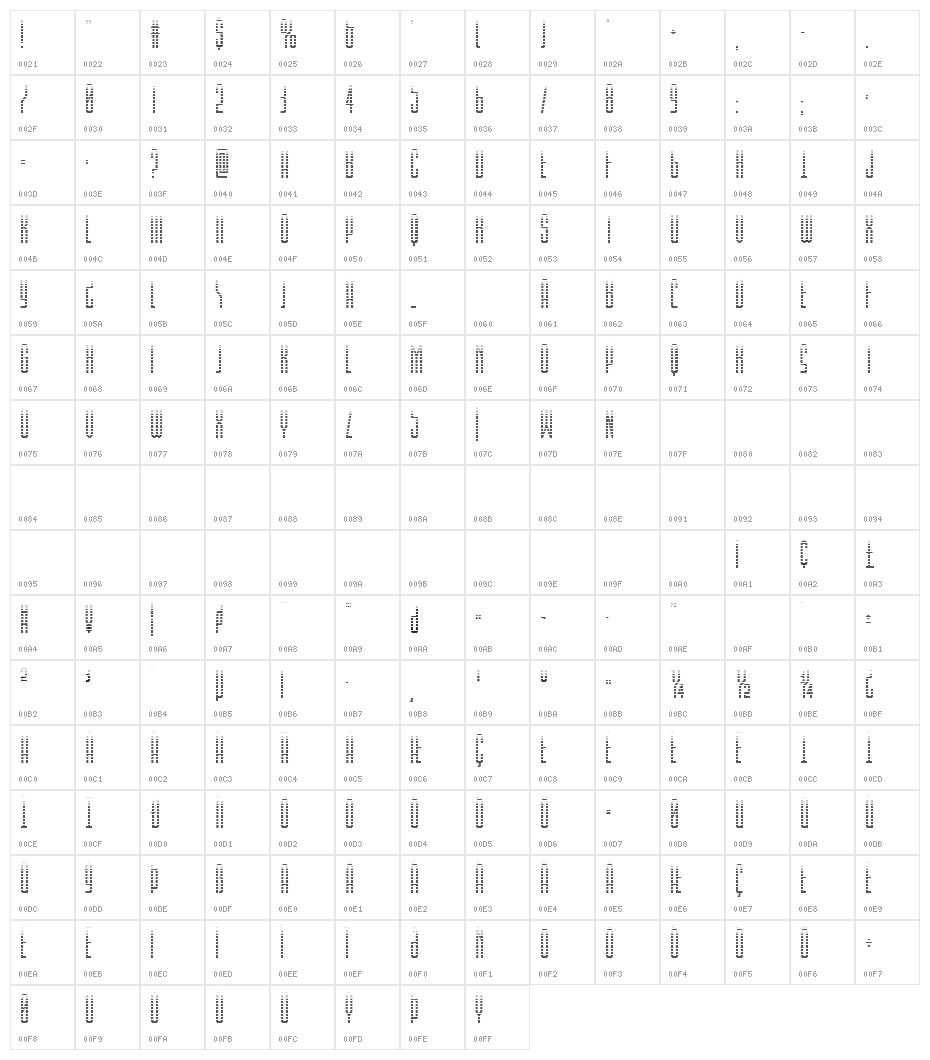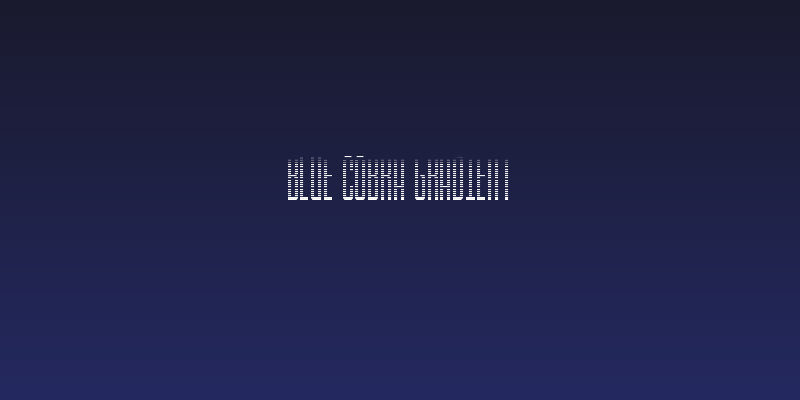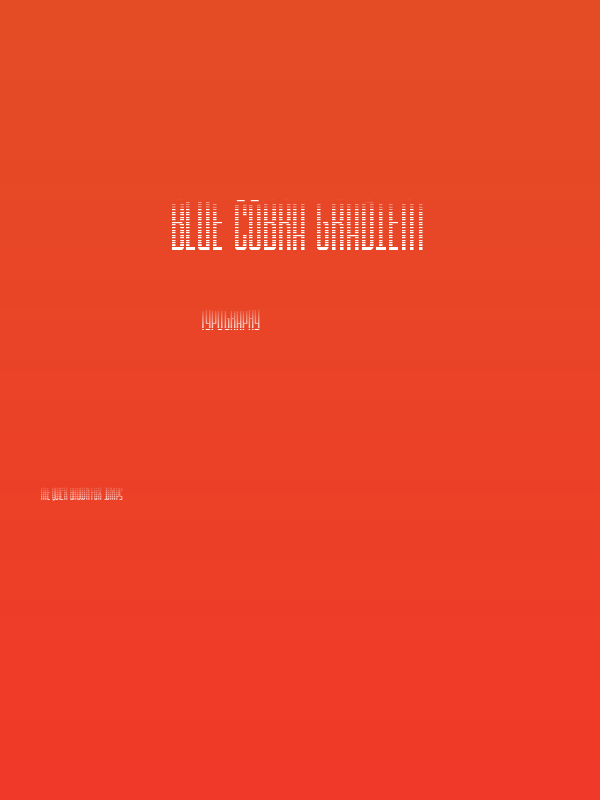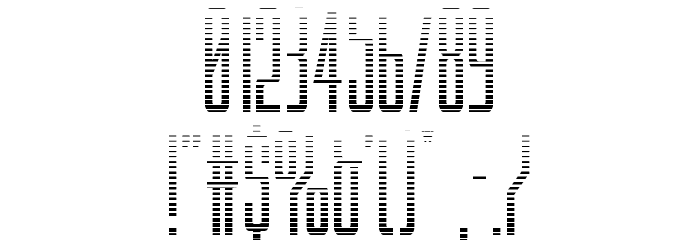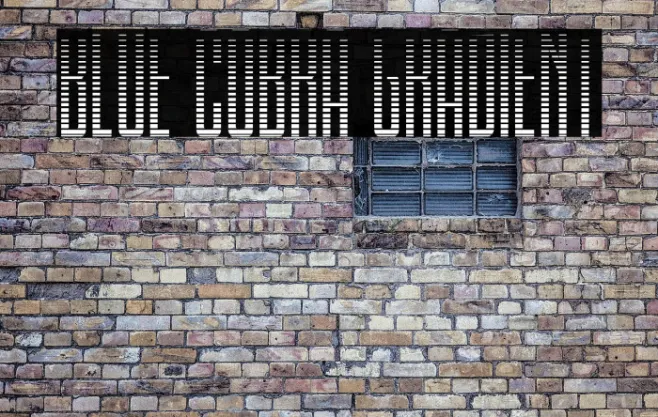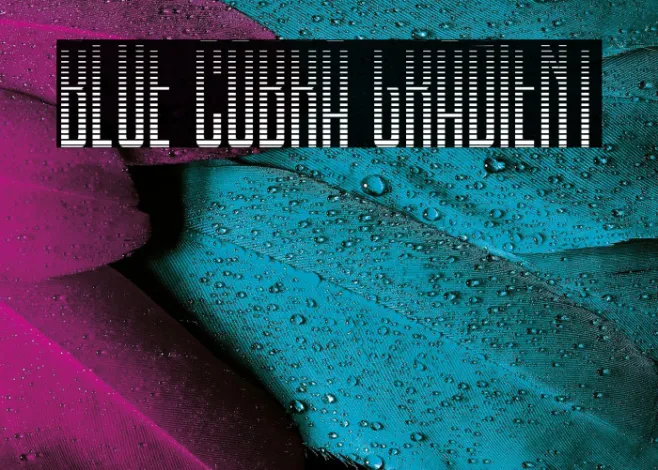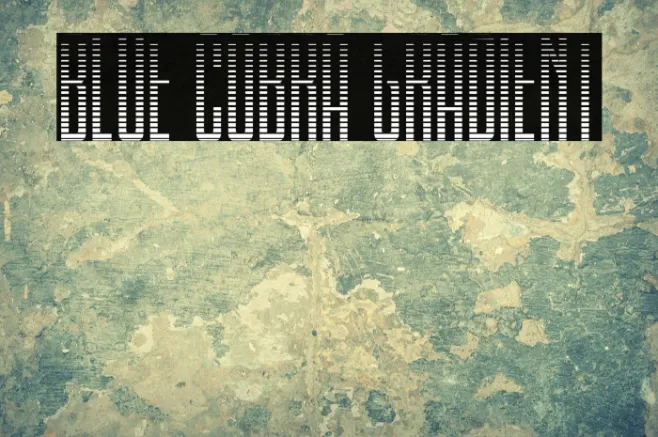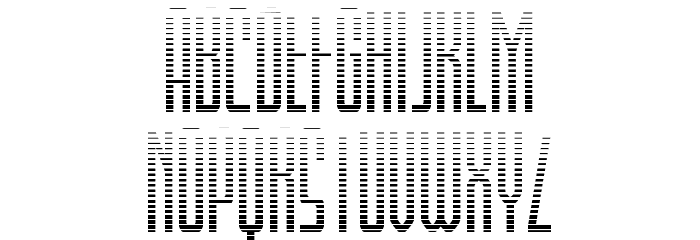
Blue Cobra Gradient Font
Blue Cobra Gradient Description
This font features a unique, modern design with a gradient effect that gives it a dynamic and futuristic appearance. The characters are composed of horizontal lines that create a sense of movement and depth. The uppercase and lowercase letters maintain a consistent style, with sharp edges and a geometric structure. The numbers and special characters are designed to match the overall aesthetic, ensuring a cohesive look across all elements. The font's distinctive style makes it stand out, making it suitable for projects that require a bold and eye-catching typeface.